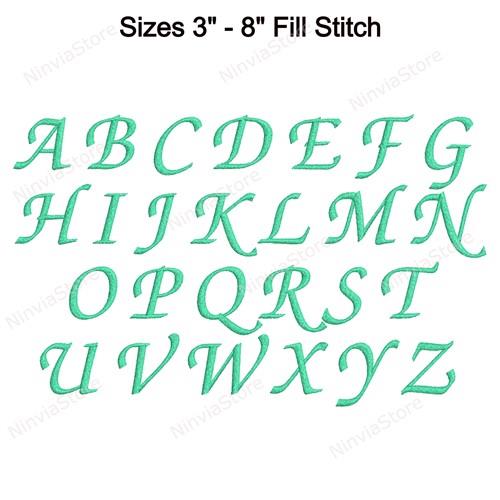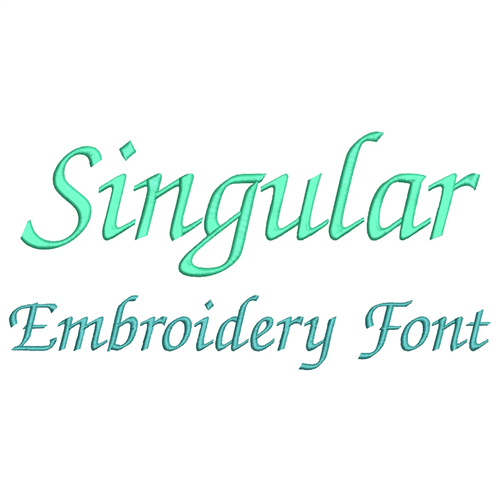
Maya Kreations is happy to present Singular Font machine embroidery font which has Graceful script machine embroidery font suitable for personalizing pillows or quilts. Designed for those who appreciate flowing curves in text. Available in PES, DST, and six other formats. included. If you would like to view more embroidery fonts and alphabets please search our embroidery fonts page.